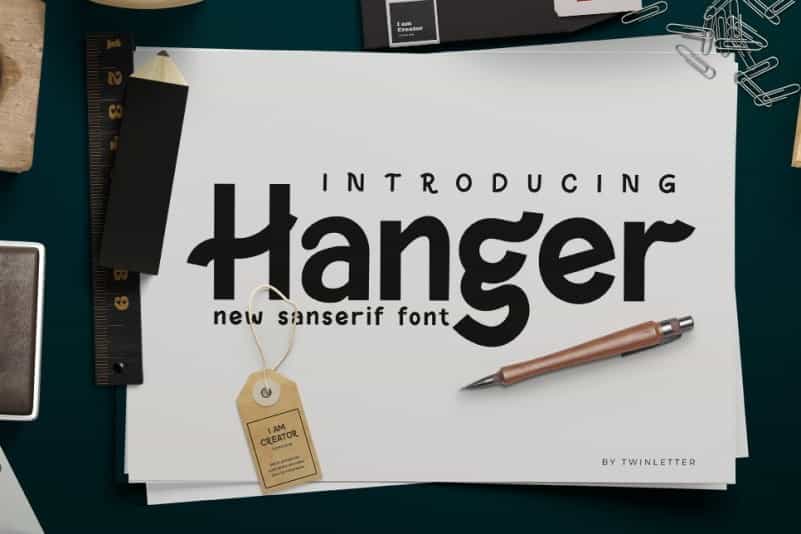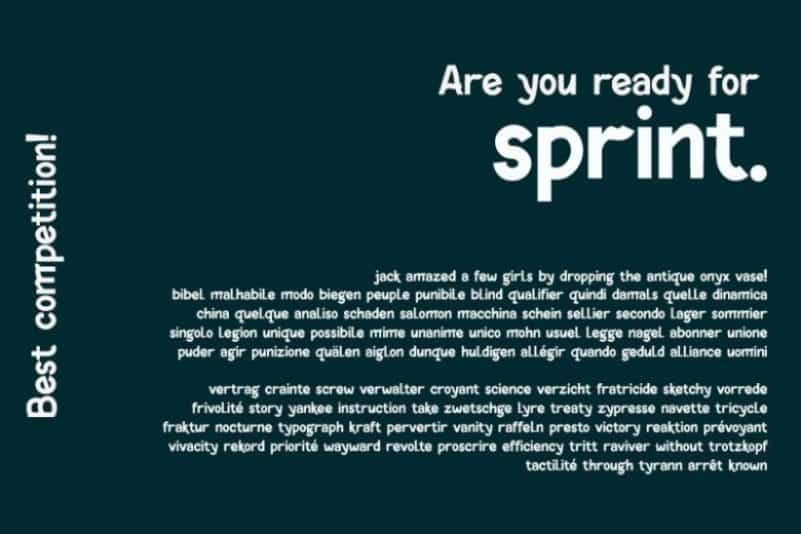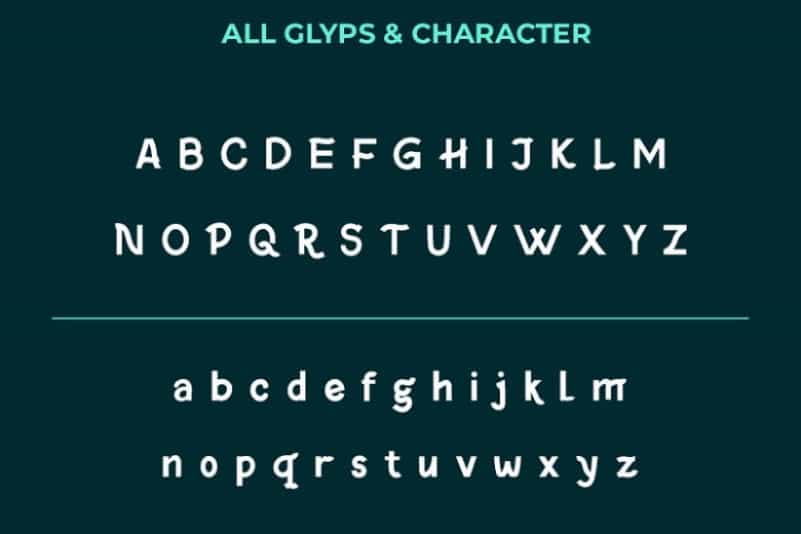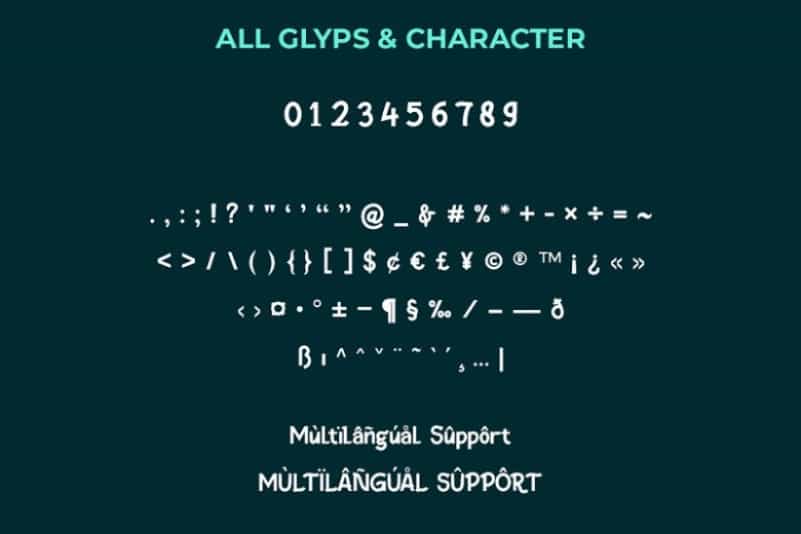
Hanger font uses the characteristics of retro styles with a combination of pure and new shapes that stand for progressive. Its complex design is devoted to typography with differentiation in thickness, making the design elegant.